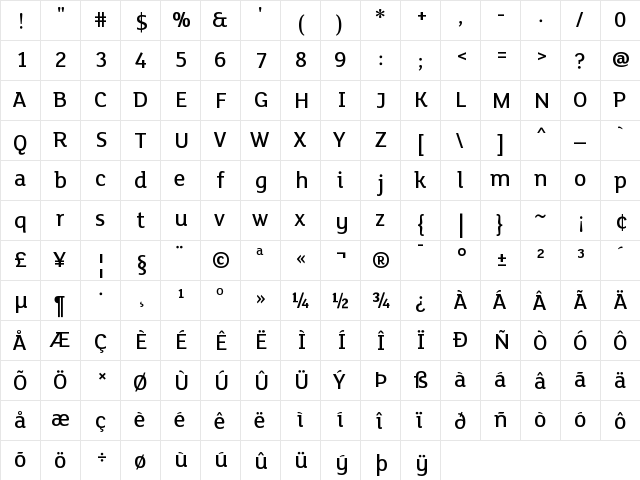
FS Lola Medium Regular Font Preview
FS Lola Medium Regular
Design Context for FS Lola Medium Typeface
FS Lola Medium takes a measured approach to typography — its balanced proportions and neutral character make it a reliable workhorse for both digital and print work.